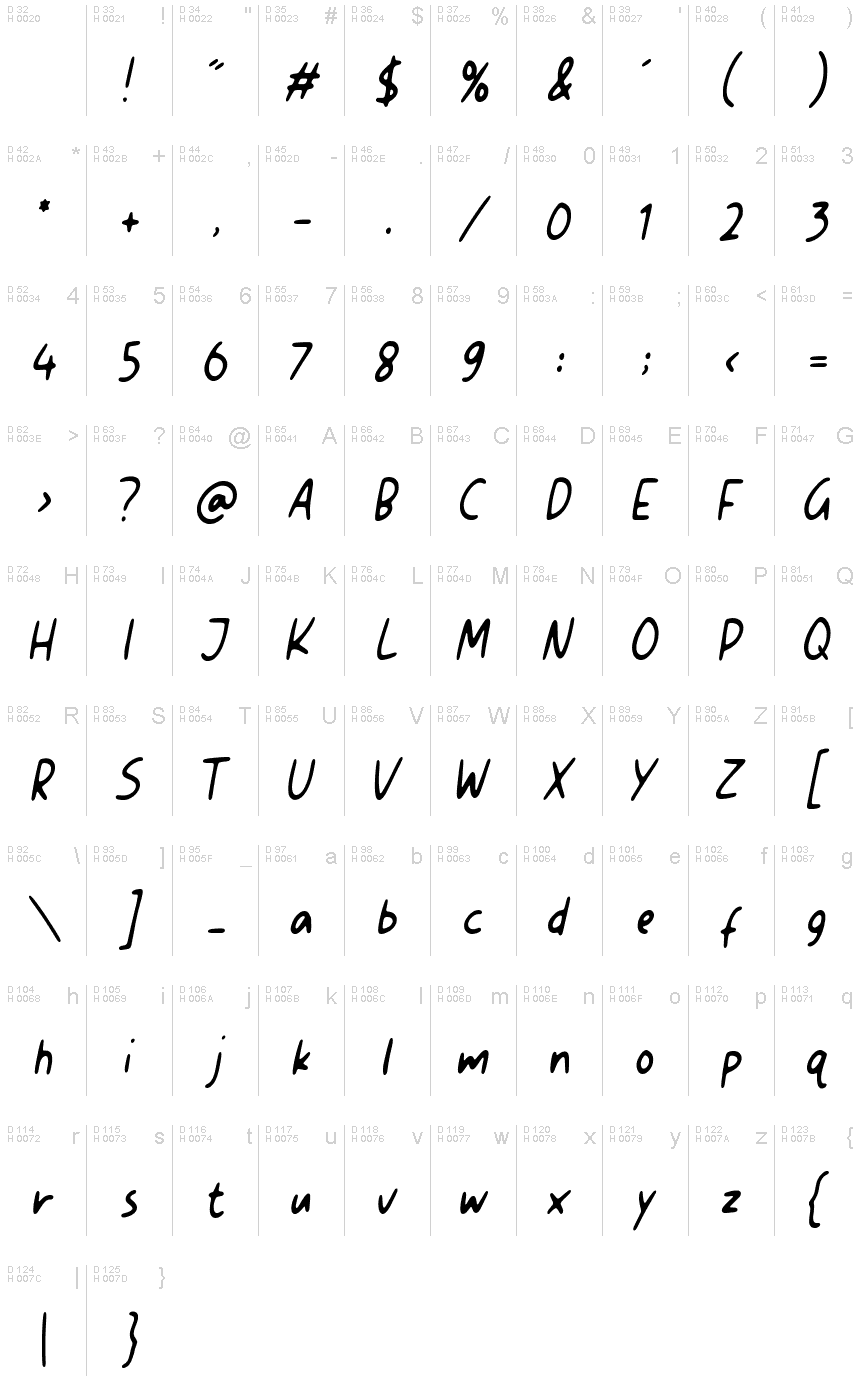
Original Quotes
Original Quotes, a casual handwritten font by Balpirick Studio, adds a personal touch to any project.
With its semi-light weight, it exudes a laid-back vibe perfect for inspirational quote designs or uplifting social media posts. Its playful curves and organic strokes also make it an ideal choice for greeting cards, wedding invitations, and scrapbooking projects. Let Original Quotes bring warmth and authenticity to your digital or print creations with its charmingly imperfect aesthetic.